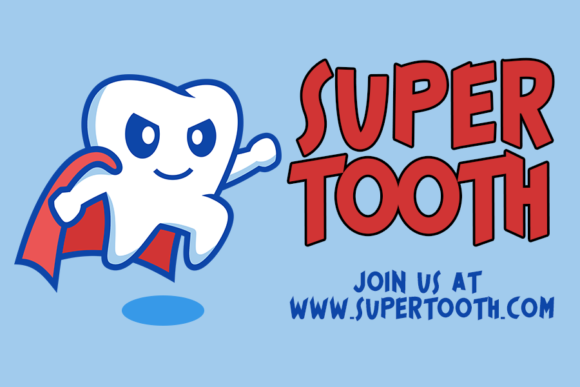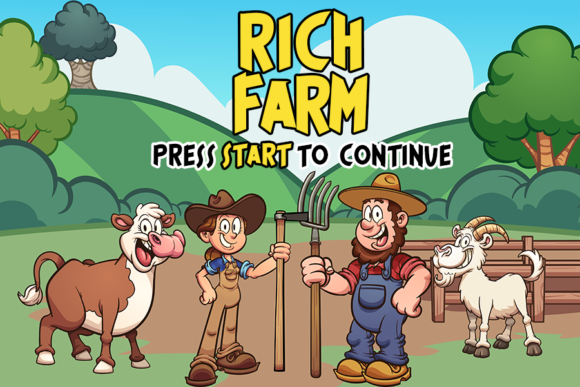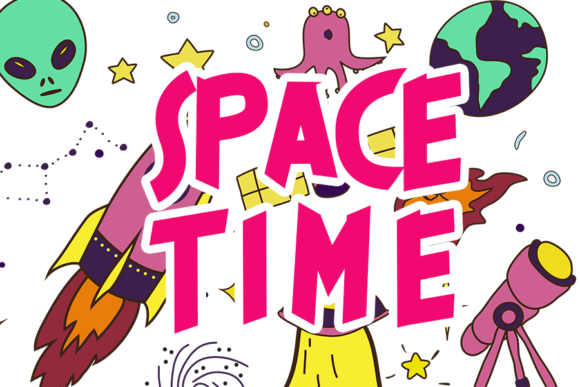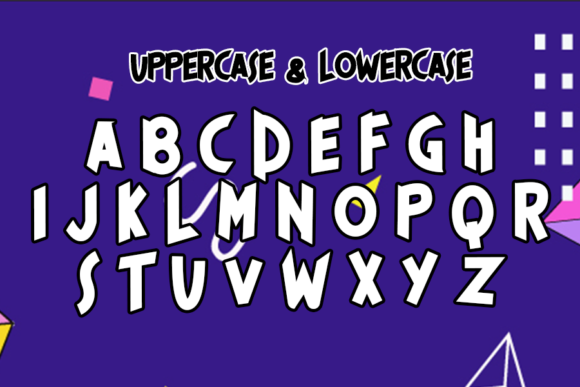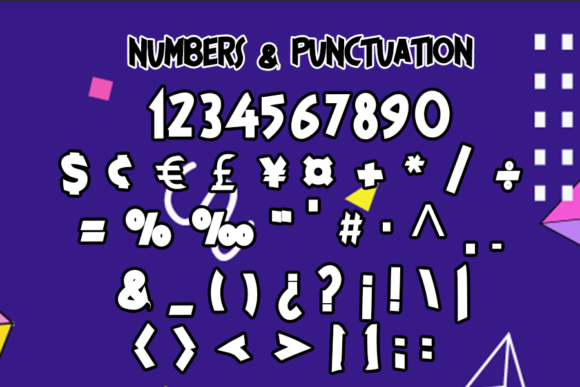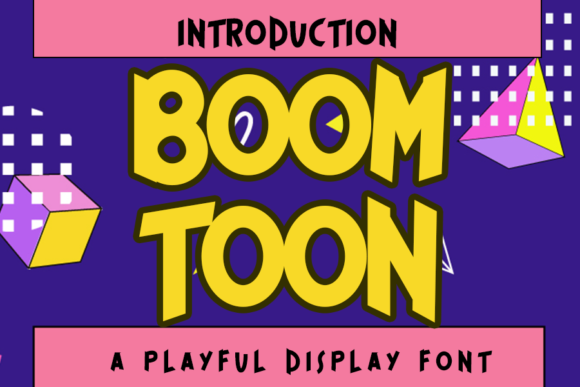
The Ultimate Guide to Boom Toon Font: Elevate Your Designs with a Cool, Game-Styled Display Font
I’ll never forget the time I was working on a project for a client’s cartoon-style video game, and I was struggling to find the perfect font to match the playful, vibrant aesthetic. The client wanted something that would appeal to a younger audience, but I was coming up blank. That’s when I stumbled upon the Boom Toon font, and it was love at first sight! 😍
Boom Toon is a cool, game-styled display font that’s perfect for adding a touch of fun and personality to your designs. Whether you’re working on a game creation, cartoon magazine, or social media game post, this font is sure to deliver. In this article, we’ll dive into the world of Boom Toon, exploring its features, how to use it, and some similar fonts you might love.
An Honest Review of Boom Toon Font
What I Love About Boom Toon ✨
- ✅ Unique, game-inspired design that’s sure to grab attention
- ✨ Highly legible, even at smaller sizes
- ✅ Extensive character set, including glyphs and stylistic alternates
- ⚠️ Some users may find the font a bit too bold or overpowering for certain designs
- ⚠️ Limited support for non-English languages
One of the best things about Boom Toon is its extensive OpenType features, including glyphs and stylistic alternates. These features allow you to customize the font to suit your design needs, adding an extra layer of personality and flair.
The Backstory Behind Boom Toon
Boom Toon was designed with the gaming community in mind. The font’s creator wanted to create a font that would capture the fun, energetic spirit of video games, while also being highly legible and versatile.
The result is a font that’s perfect for game developers, designers, and hobbyists alike. Whether you’re creating a game, a cartoon, or just a fun social media post, Boom Toon is sure to bring a smile to your audience’s face.
Q: What is Boom Toon font?
A: Boom Toon is a cool, game-styled display font perfect for adding a touch of fun and personality to your designs.